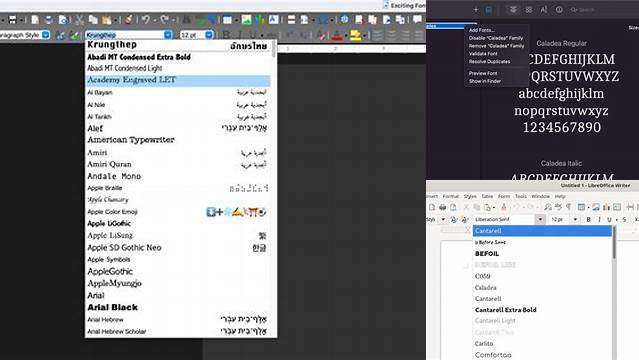
Mastering Microsoft Office Fonts For LibreOffice: A Complete Guide
Welcome, guys! Ever found yourself wrestling with document formatting when switching between Microsoft Office and LibreOffice? One of the biggest culprits? Fonts! Don't sweat it, though, because we're diving deep into the world of Microsoft Office fonts for LibreOffice. This guide is your ultimate resource for understanding, installing, and using those crucial fonts to ensure your documents look consistent, no matter which software you're using. We'll cover everything from why it matters to the step-by-step process of getting those fonts up and running. Let's get started and say goodbye to formatting headaches!
The Importance of Font Compatibility Between Microsoft Office and LibreOffice
So, why is this whole Microsoft Office fonts for LibreOffice thing such a big deal, right? Well, imagine this: you've painstakingly crafted a beautiful report in Microsoft Word, using a specific font like Calibri or Cambria. You send it off to a colleague who uses LibreOffice, and when they open it, the font has magically transformed into something else – maybe a default font like Liberation Serif. The layout shifts, text reflows, and suddenly, your carefully designed document looks… well, not quite right. This is the pain point font compatibility solves. Fonts are the building blocks of visual communication. They dictate the look and feel of your text, influencing everything from readability to the overall aesthetic. When fonts aren't consistent, the message can get lost in translation. It's like having a translator who doesn't speak the language fluently; the meaning gets distorted. By ensuring you have the same fonts available in both Microsoft Office and LibreOffice, you guarantee that your documents appear as intended, regardless of the software used to open them. This is particularly critical for professional documents, presentations, and any materials where visual consistency is key. Think about it: resumes, business proposals, and academic papers all rely on a polished and professional appearance. Using compatible fonts ensures that your work maintains its integrity and conveys the right message. Furthermore, consistent fonts are essential for collaborative projects. When multiple people are working on the same document using different software, the potential for formatting chaos increases exponentially. Using the same fonts across the board streamlines the process, making it easier to edit, review, and share documents without any unexpected surprises. Basically, if you want your documents to look the same, no matter where they're opened, mastering Microsoft Office fonts for LibreOffice is a must.
Understanding the Difference Between Microsoft Office Fonts and LibreOffice Defaults
Let's get technical for a sec, shall we? When you install Microsoft Office, a suite of proprietary fonts comes along for the ride. These fonts, such as Calibri, Cambria, Arial, and Times New Roman, are designed to work seamlessly within the Microsoft Office ecosystem. LibreOffice, on the other hand, comes with its own set of default fonts, typically open-source fonts like Liberation Sans, Liberation Serif, and Liberation Mono. Now, these default fonts are perfectly good in their own right. They are free, versatile, and widely supported. However, they may not always be the exact match for their Microsoft Office counterparts. For example, Liberation Serif is designed to be similar to Times New Roman, but slight differences in the letter shapes and spacing can cause layout inconsistencies. When a document created with a Microsoft Office font is opened in LibreOffice, and the original font is not available, LibreOffice substitutes it with a default font. This substitution, while necessary, can disrupt the document's original formatting. Headings might appear too large or small, the text might wrap differently, and the overall visual balance could be off. The goal of installing Microsoft Office fonts for LibreOffice is to prevent this substitution. By installing the Microsoft Office fonts, you give LibreOffice the exact fonts used in the original document. When LibreOffice opens the document, it can then display it with the intended fonts, preserving the original formatting. This is especially important for documents that have been carefully formatted with specific fonts, sizes, and styles. Think of it like this: your document is a work of art, and the fonts are the artist's brushstrokes. You want to make sure those brushstrokes are reproduced accurately, not replaced with something similar but not quite right. By using Microsoft Office fonts in LibreOffice, you preserve the integrity of your document and maintain its intended aesthetic.
Common Microsoft Office Fonts and Their LibreOffice Equivalents
Okay, so you're probably wondering, which Microsoft Office fonts are the usual suspects? Well, here's a quick rundown of the most common ones you'll encounter, along with their closest LibreOffice equivalents. First up, we have Calibri. This is the default body font in Microsoft Office and is a sans-serif font known for its clean, modern look. Its closest match in LibreOffice is often Liberation Sans, but you'll want to install Calibri itself for the best results. Next, we have Cambria, another popular choice, especially for headings and longer texts. It's a serif font that's easy on the eyes. While Liberation Serif is similar, the actual Cambria font provides the intended look. Then, there's Arial, a widely used sans-serif font, often considered a default. While Liberation Sans is again a decent alternative, having Arial itself is crucial. Times New Roman, the classic serif font, is another staple. Liberation Serif can be a good substitute, but again, installing the original font will ensure perfection. Other fonts you might encounter include: Consolas (a monospaced font for code and technical documents), Georgia (a serif font known for its readability), and Verdana (a sans-serif font designed for on-screen readability). While LibreOffice's default fonts aim to provide similar aesthetics, they can't fully replicate the nuances of the Microsoft Office fonts. By installing the original Microsoft Office fonts, you ensure that your documents will look as intended. It’s crucial to recognize that while substitutions can get you close, there’s no perfect replacement. Each font has its own unique characteristics, and even slight differences can impact the overall appearance of your document.
Alright, let's zoom in on Windows. Installing Microsoft Office fonts for LibreOffice on Windows systems is fairly simple. After you've copied the font files from the C:\Windows\Fonts directory (or from a safe source), you have a few options. The simplest way is to right-click on each font file (.ttf or .otf) and select 'Install'. Windows will automatically install the font and make it available to all applications, including LibreOffice. Another method is to open the 'Fonts' control panel. You can access this by searching for 'Fonts' in the Windows search bar. Drag and drop the font files into the Fonts window. This will also install the fonts system-wide. If you want to install the fonts for a specific user account, you can copy the font files to the C:\Users\<YourUsername>\AppData\Local\Microsoft\Windows\Fonts folder. However, make sure that 'AppData' folder is not hidden (you may need to enable 'Show hidden files and folders' in the Windows File Explorer). Once the fonts are installed, you'll need to ensure LibreOffice recognizes them. Open LibreOffice and go to Tools > Options > LibreOffice > View. Make sure that 'Use system fonts for user interface' is selected. Then, go to Tools > Options > LibreOffice > Fonts. In the 'Font replacement' section, you can set up font substitutions if needed, but in most cases, LibreOffice will automatically detect the installed Microsoft Office fonts. You may need to restart LibreOffice or your computer for the changes to take effect. After the restart, open a LibreOffice document and check the font selection menu. You should see your newly installed Microsoft Office fonts available. If they don't appear, double-check the installation steps and consider restarting your computer again.
Installing Fonts on macOS Systems for LibreOffice Compatibility
Let's switch gears and talk about macOS. Installing Microsoft Office fonts for LibreOffice on a Mac is generally quite straightforward, too. First off, you'll need to get those font files. The process for obtaining them is the same as for Windows: either copy them from a computer with Microsoft Office installed or from a safe and legal source. Once you have the font files (usually in .ttf or .otf format), the easiest way to install them is by using Font Book. Font Book is a built-in macOS application for managing fonts. Double-click on a font file, and Font Book will open. Click 'Install Font'. The font will be installed and available to all applications on your system, including LibreOffice. Alternatively, you can manually add fonts to Font Book. Open Font Book (you can find it in the Applications folder), click the '+' button in the toolbar, and select the font files you want to install. You can also copy the font files directly to the /Library/Fonts folder (for all users) or ~/Library/Fonts (for the current user only). However, it's generally recommended to use Font Book for installation. After installing the fonts, you should open LibreOffice and make sure it recognizes them. Go to LibreOffice > Preferences and then to LibreOffice > Fonts. The fonts should automatically appear in the font list. If they don't, try restarting LibreOffice. You may need to restart your computer for the changes to take effect. To check, create a new LibreOffice document and check the font selection menu. You should see the Microsoft Office fonts listed alongside your other fonts. If they still aren't showing up, double-check the installation steps and make sure you've restarted your computer.
Installing Fonts on Linux Systems for LibreOffice Compatibility
Alright, Linux users, let's get you sorted out with Microsoft Office fonts for LibreOffice. Installing fonts on Linux is a bit different because Linux distributions vary. However, the general principles remain the same. You'll need the font files, and you'll typically install them in a system-wide font directory. The most common locations for font directories are: /usr/share/fonts and ~/.fonts (the latter is for user-specific fonts). The exact steps for installing fonts depend on your Linux distribution. Let's go through some common scenarios. Debian/Ubuntu: Copy the font files to /usr/share/fonts/truetype/ (you might need to create the truetype subdirectory if it doesn't exist). You'll likely need root privileges to do this, so use sudo. After copying the files, run sudo fc-cache -fv in the terminal to update the font cache. Then, restart LibreOffice. Fedora/CentOS/RHEL: Similar to Debian/Ubuntu, copy the font files to /usr/share/fonts/truetype/ (or a relevant subdirectory) using sudo. Update the font cache with sudo fc-cache -fv. Restart LibreOffice. Arch Linux/Manjaro: You can copy the font files to /usr/share/fonts/, then run sudo fc-cache -fv. Alternatively, you can place the fonts in your ~/.local/share/fonts/ directory, which is for user-specific fonts. After the installation, restart LibreOffice, and you should see the Microsoft Office fonts in the font selection menu. If you're having issues, there are a couple of things to troubleshoot. Make sure you have the necessary permissions to copy the font files to the font directory. Double-check the font cache updates. If you are unsure, a quick search online with your specific distribution name and